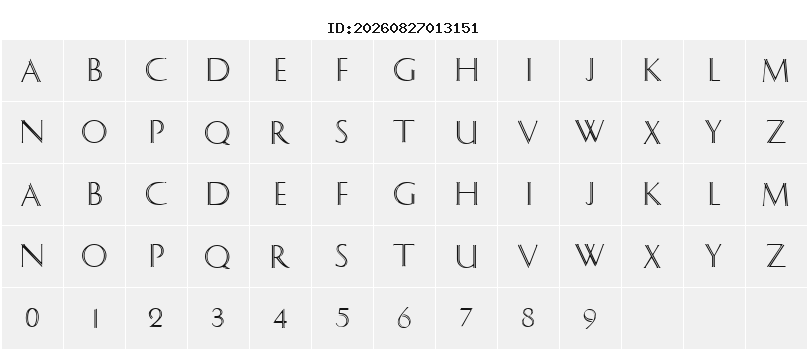
894-CAI978 Preview
About 894-CAI978.ttf
894-CAI978.ttf is a modern, elegant sans-serif font designed for ultimate readability and visual harmony. Perfect for branding, headlines, web design, and print materials.